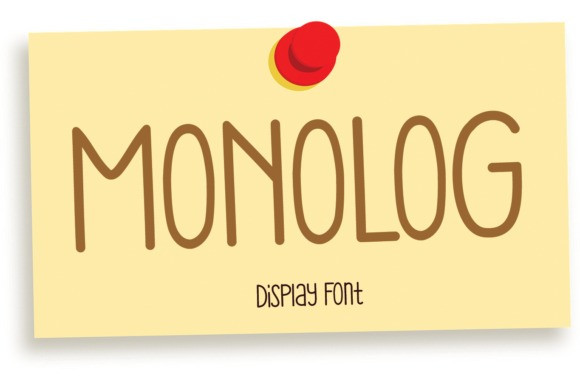
Monolog Font
Monolog Font is a simple and friendly sans serif font. It can easily be matched to an incredibly large set of projects, so add it to your creative ideas and notice how it makes them stand out!